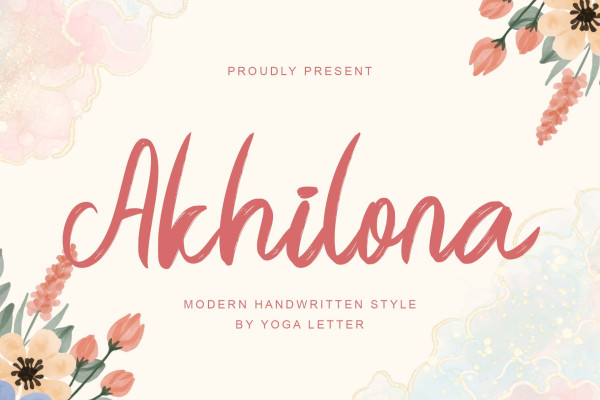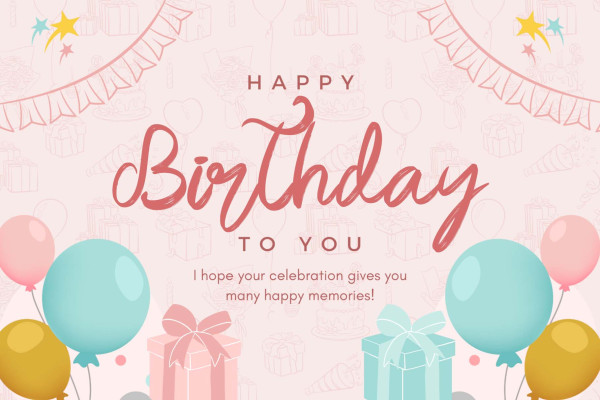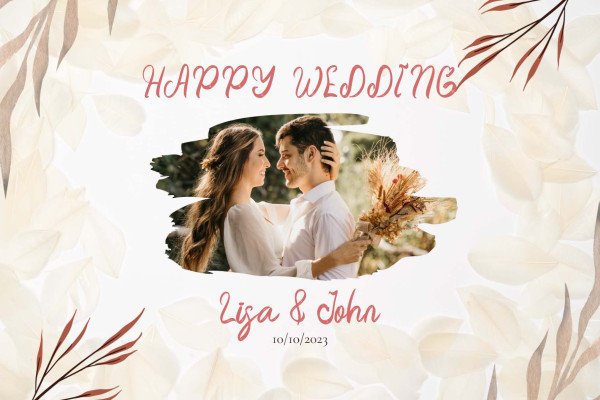
Akhilona Script Font
Akhilona Script Font is a very elegant and aesthetic handwritten brush font. This font is equipped with uppercase, lowercase, numerals, punctuation, and multilingual support. It is suitable for weddings, engagements, birthdays, photography, back to school, Christmas, parties, invitations, and others.